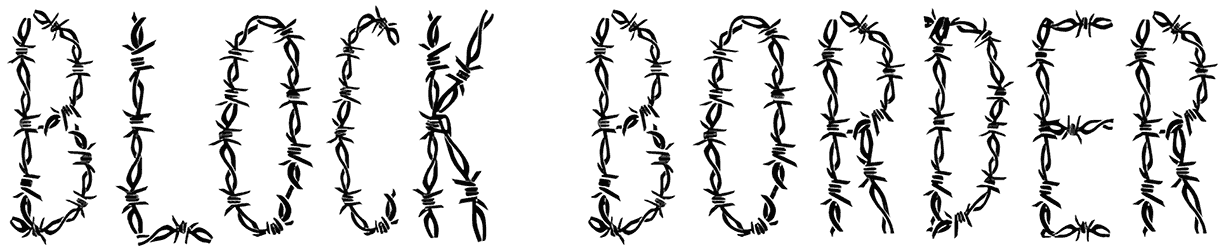
Block Border Font
You don’t usually consider using a barbed wire font for a typography project, do you? Well, that’s all about to change after you see what a great difference Block Border or any other one of them makes to your artwork.
The best part is that its rough style gives it a strong decorative touch like nothing else. The same thing is what makes this all-caps font so versatile, in apparel designs, military gaming UI projects, death metal music covers, and more.